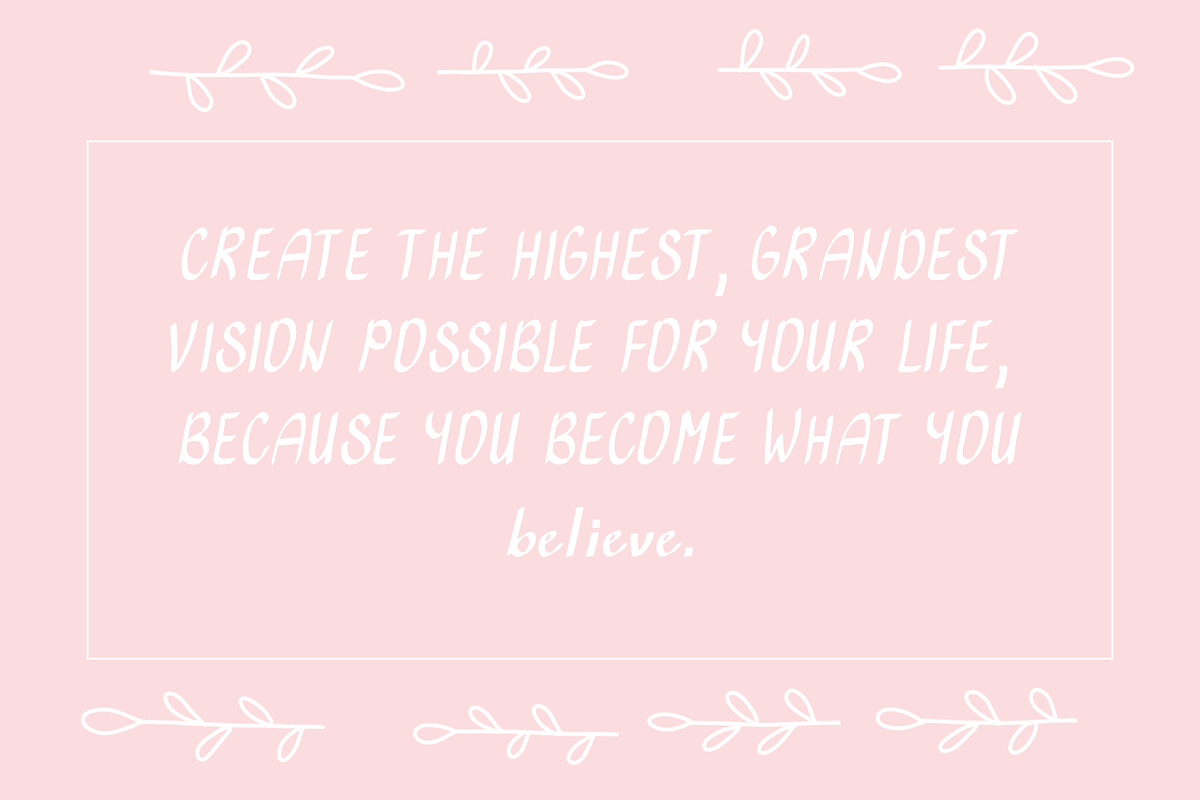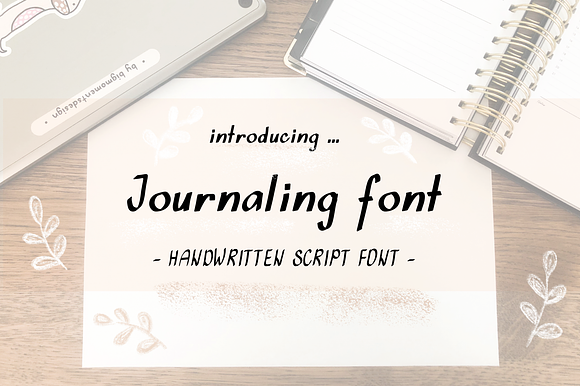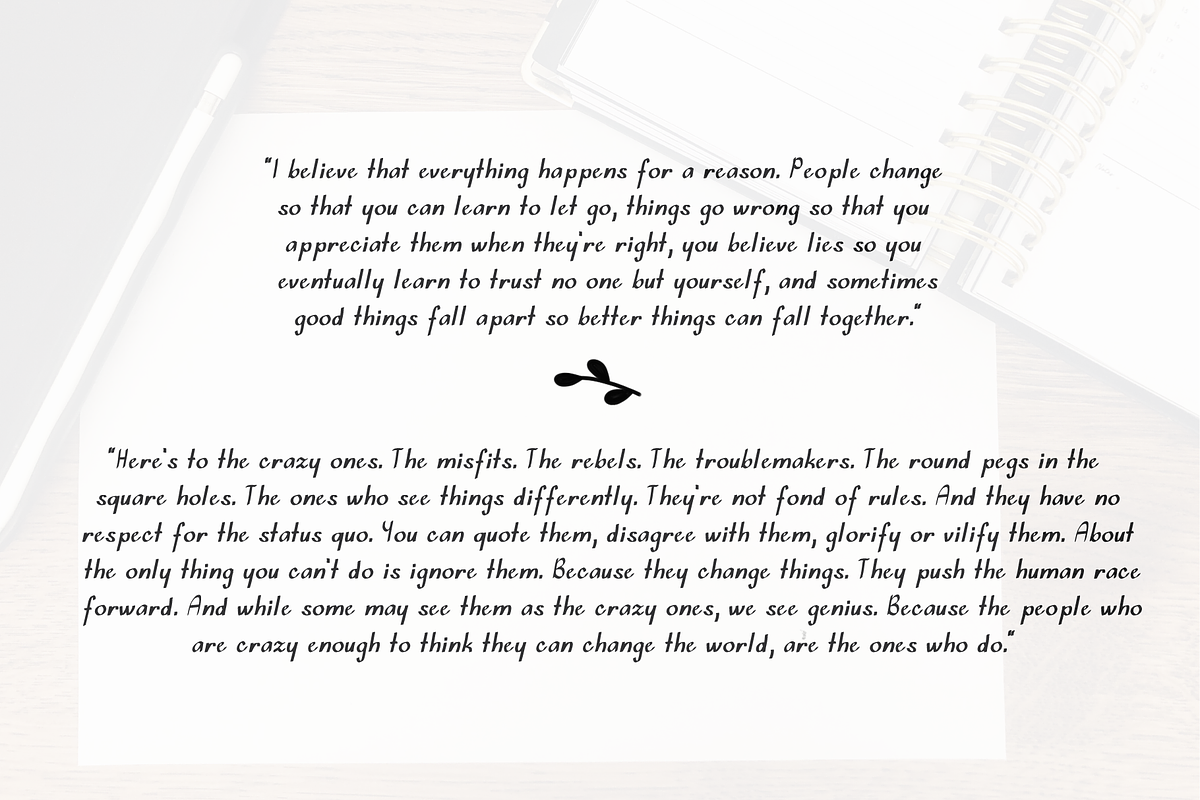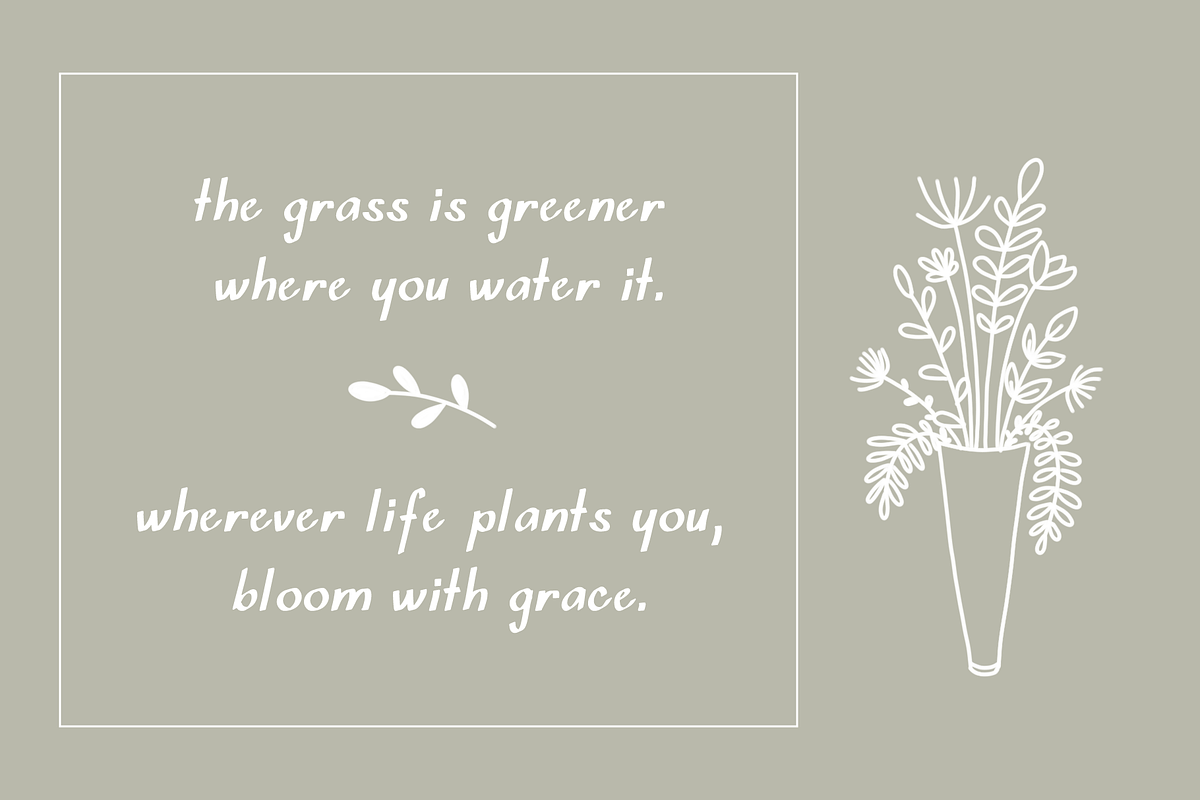
Journaling script handwritten font
Hello guys, I am glad to present you my handwritten font Journaling Font with interesting personal writing style. It can be perfect for your vlog, blogs, journals, trips, travel diaries, videos and many other experiences. Lowercase, uppercase letters, numbers and characters are available. This font is perfect for creating logos, headlines, blogs, websites, stationary and other amazing stuff.
- Lowercase, uppercase letters, numbers and characters are available.